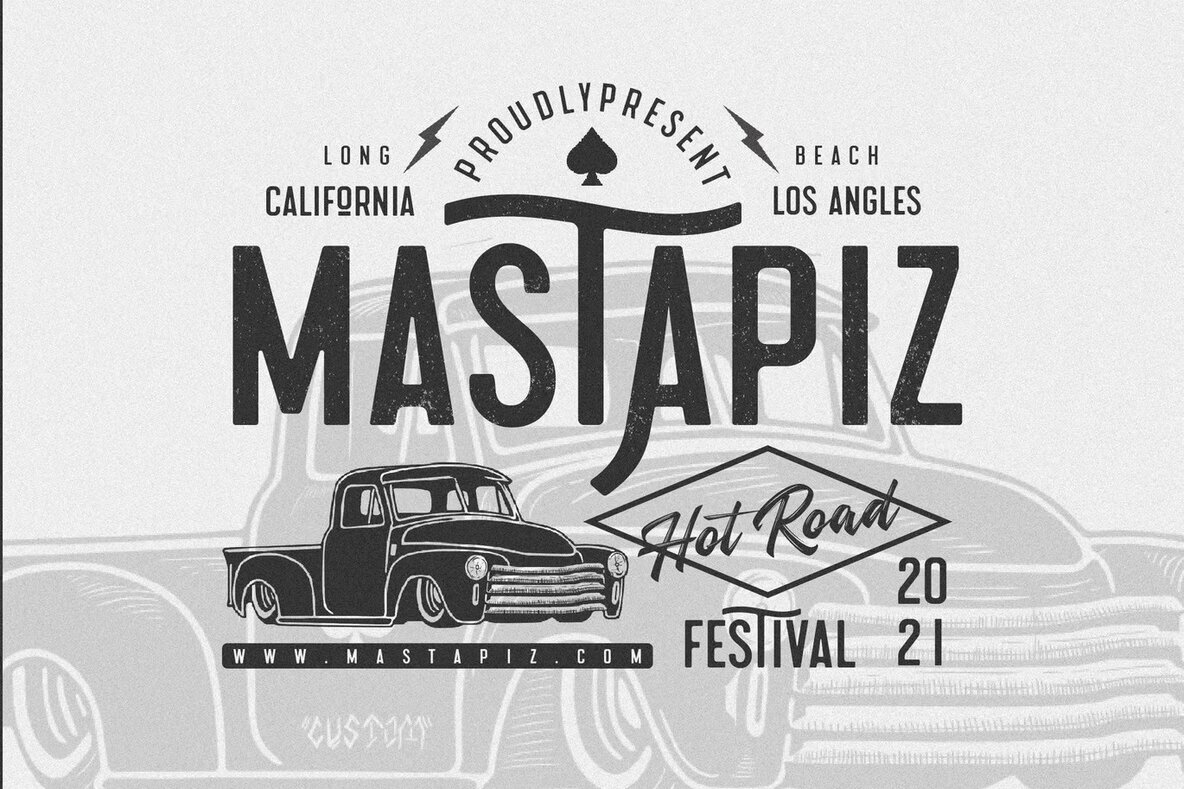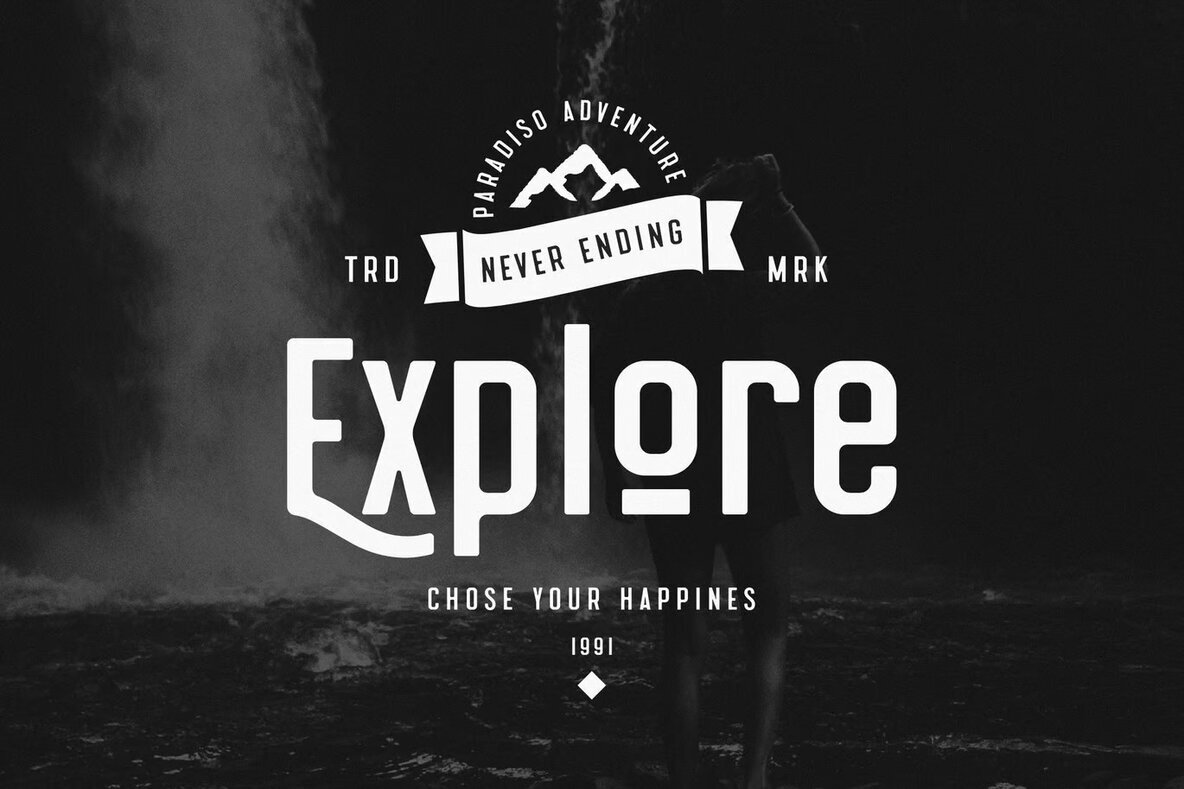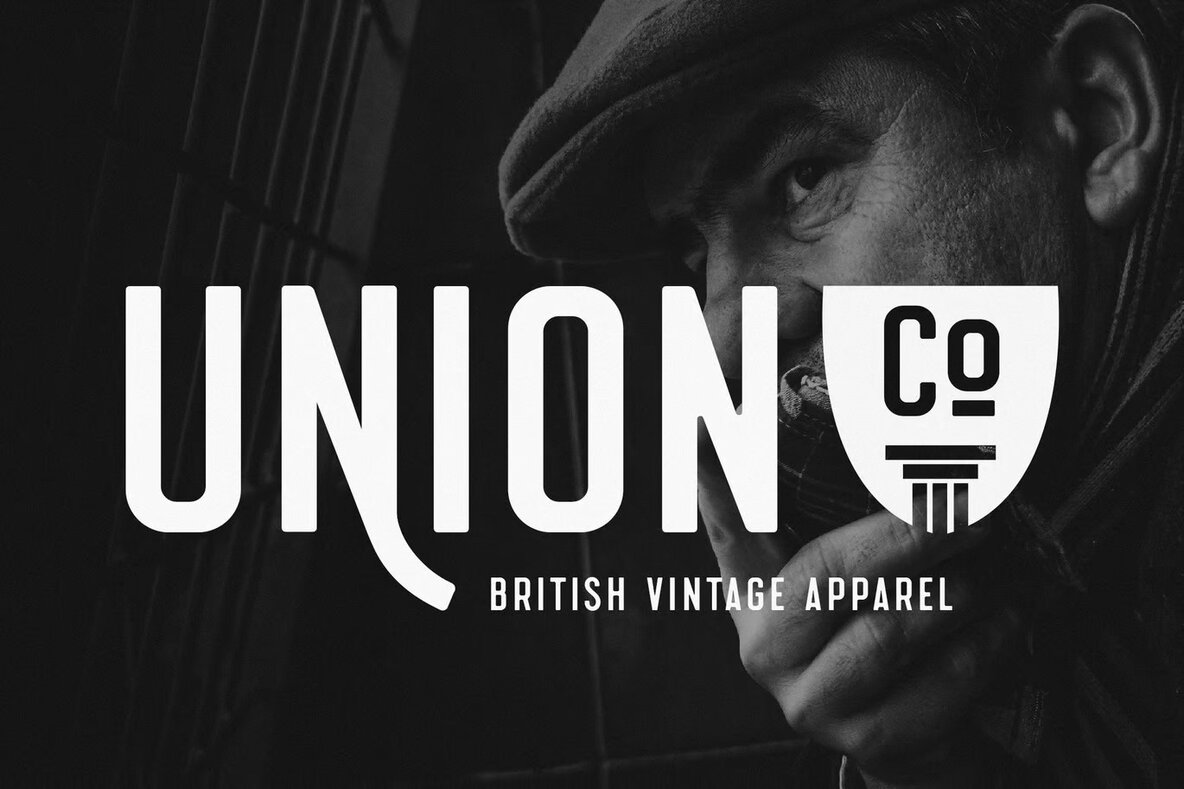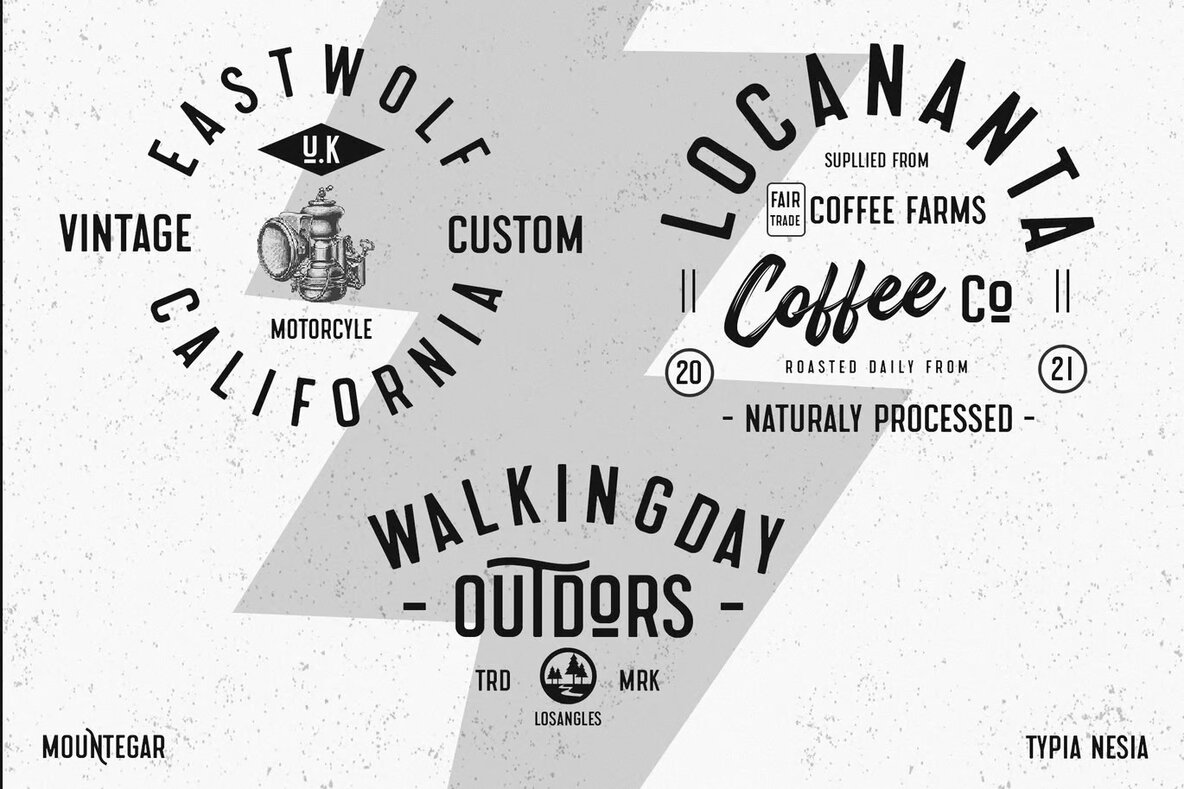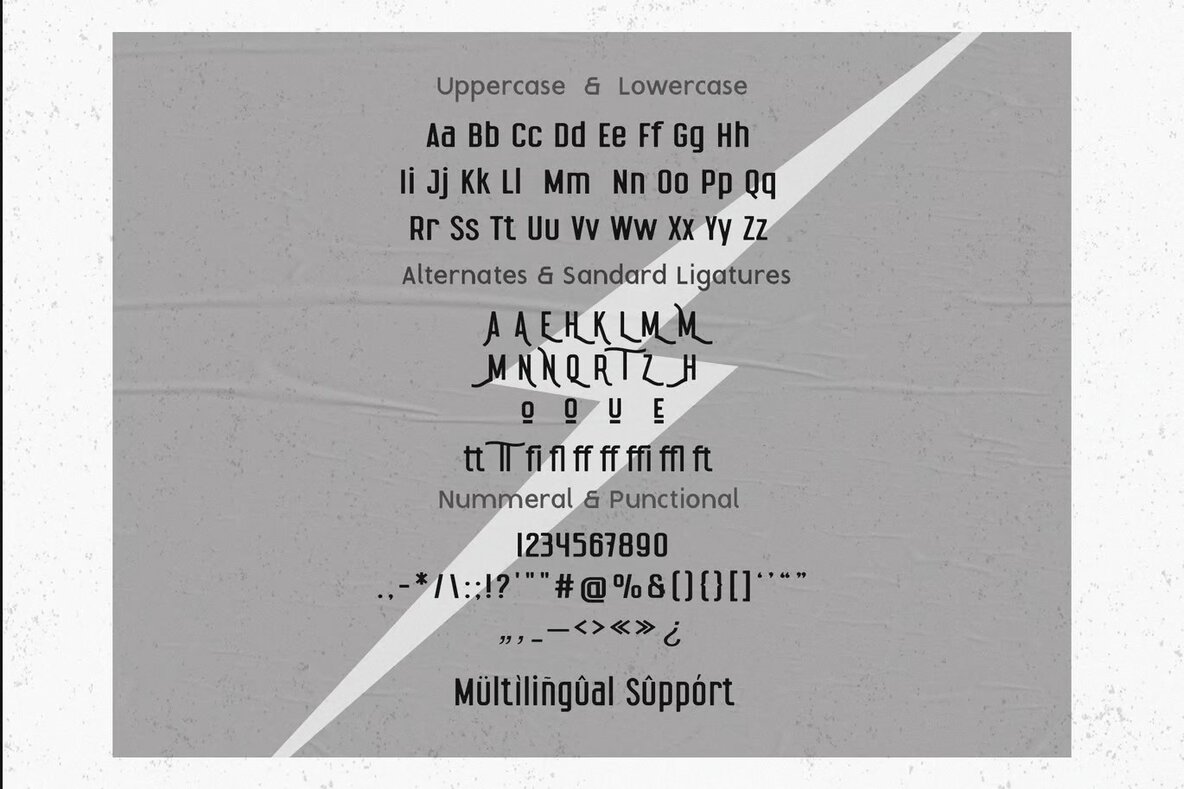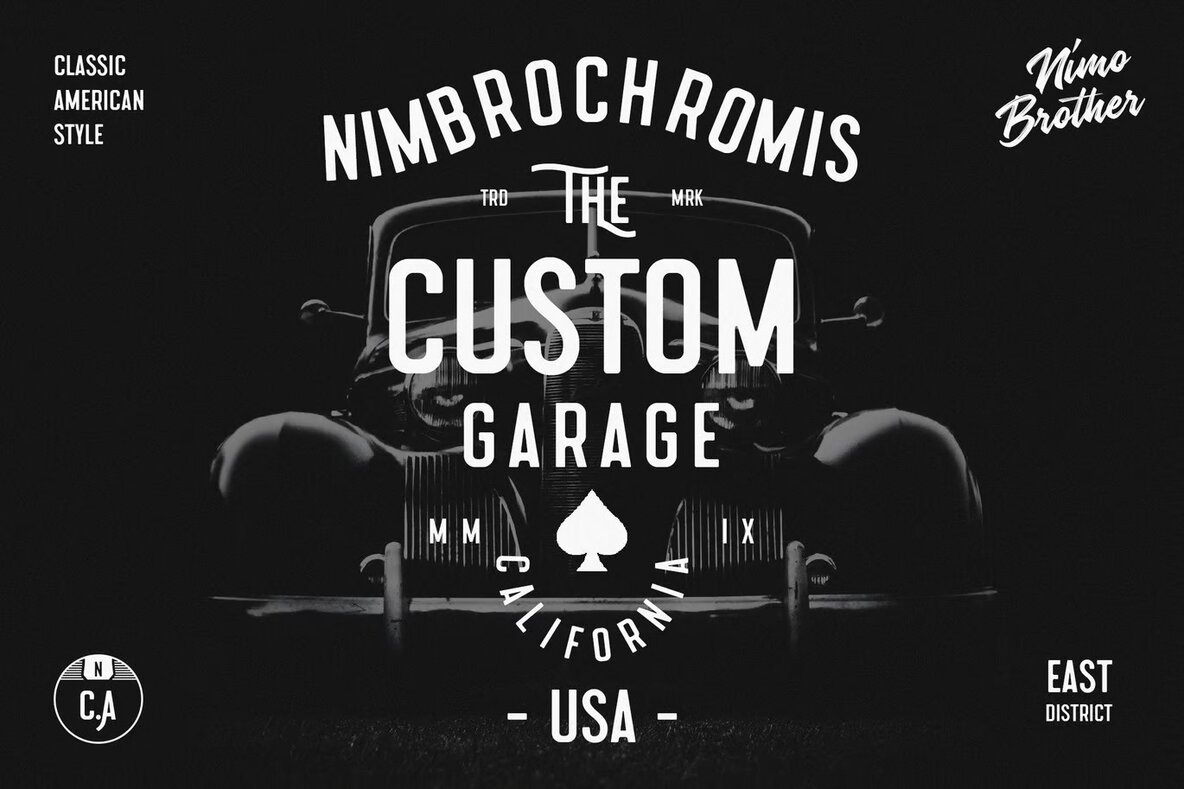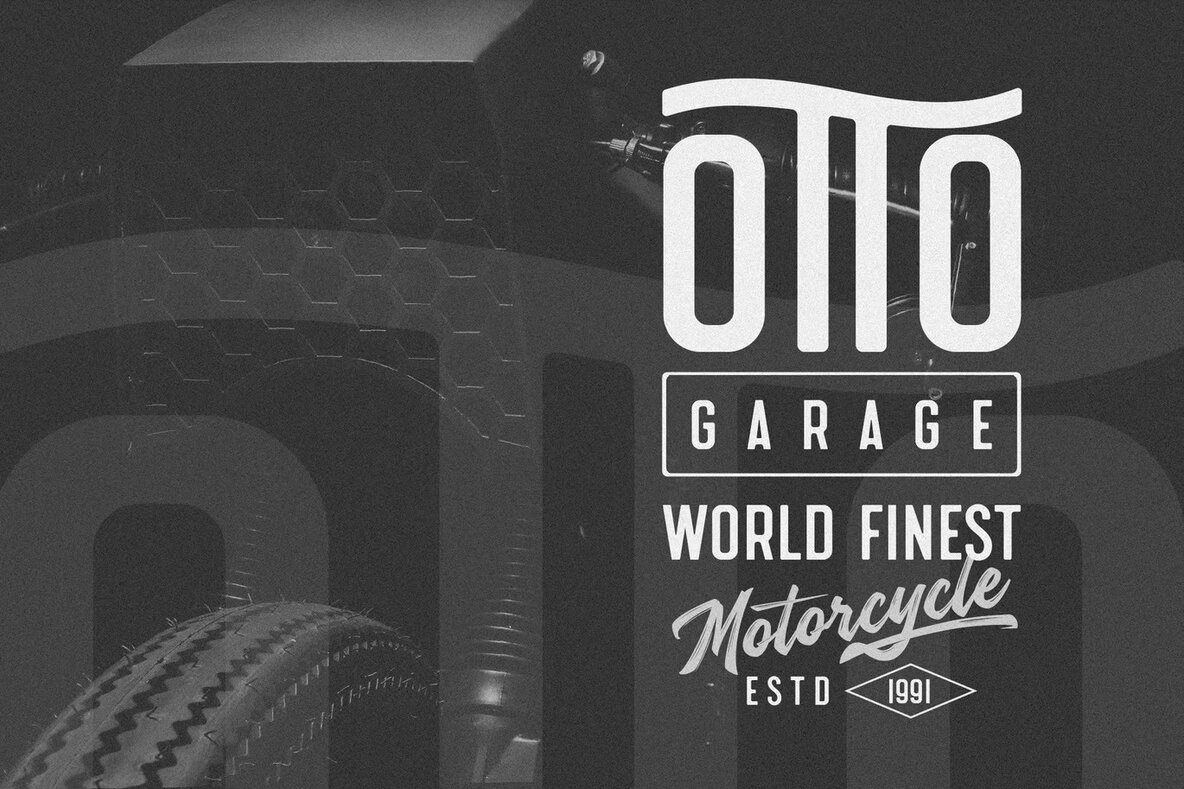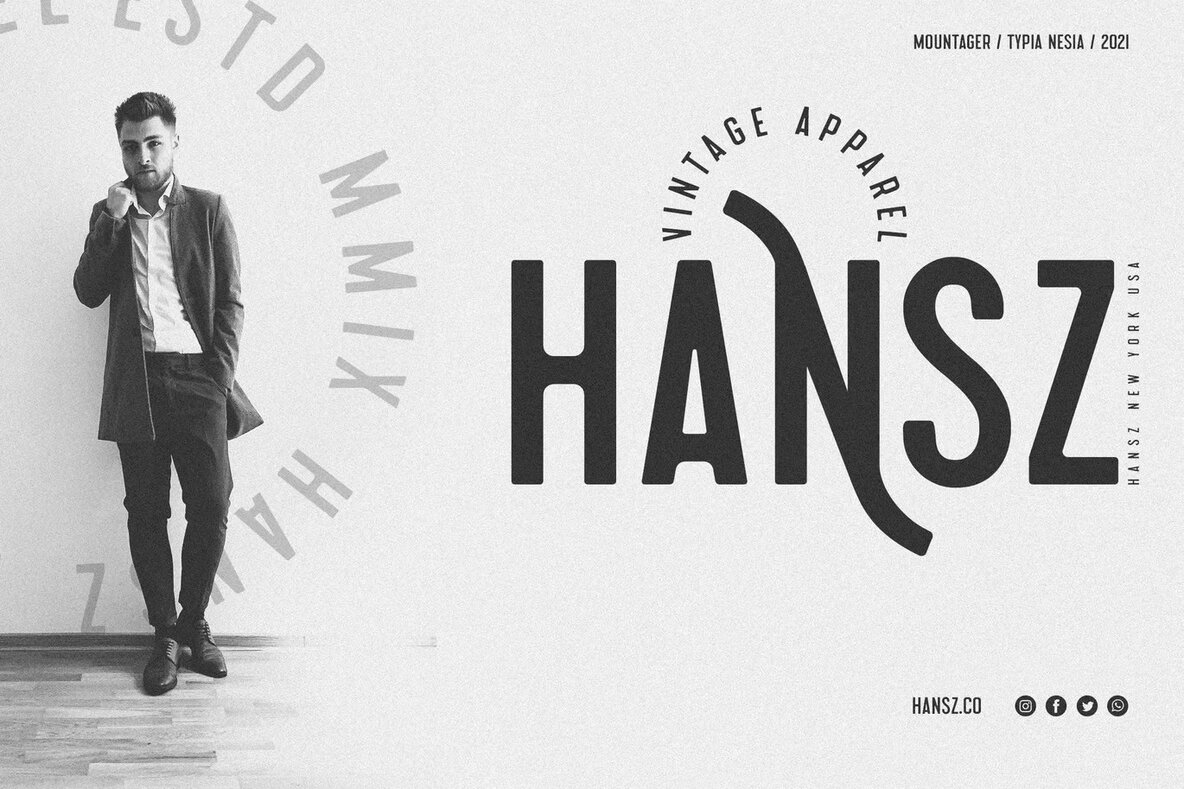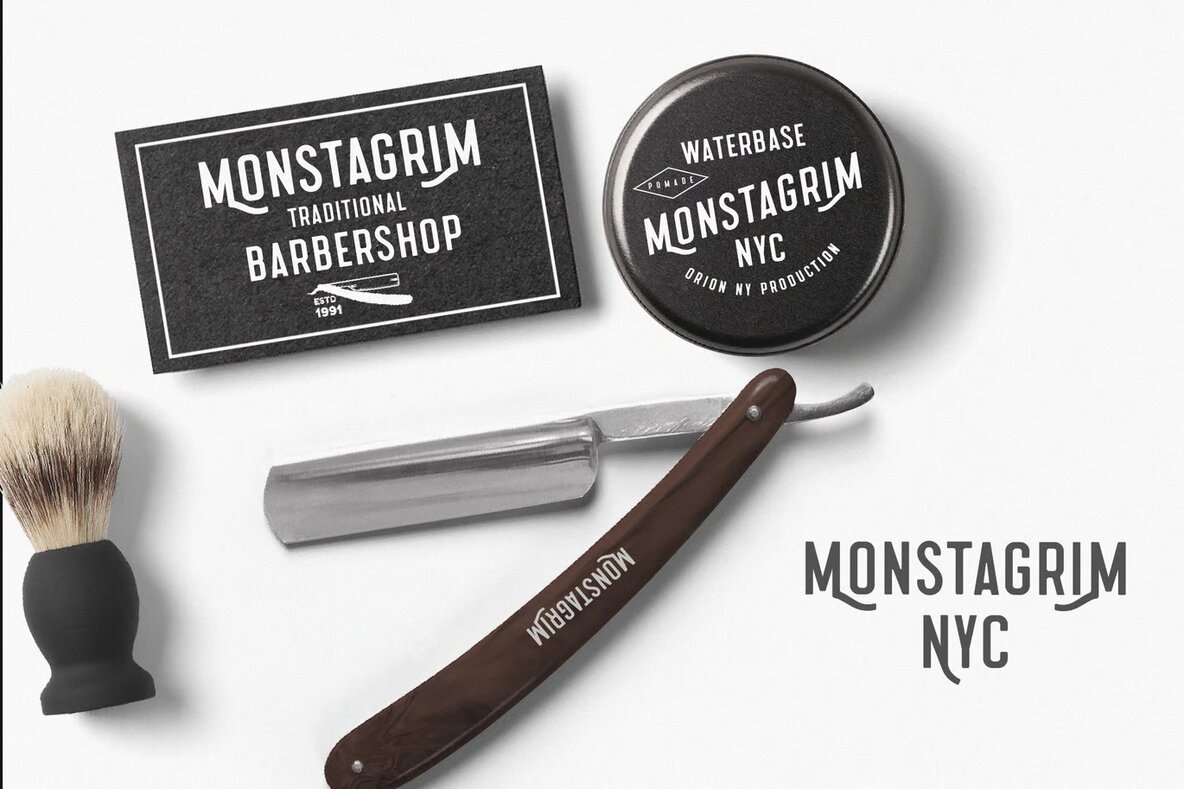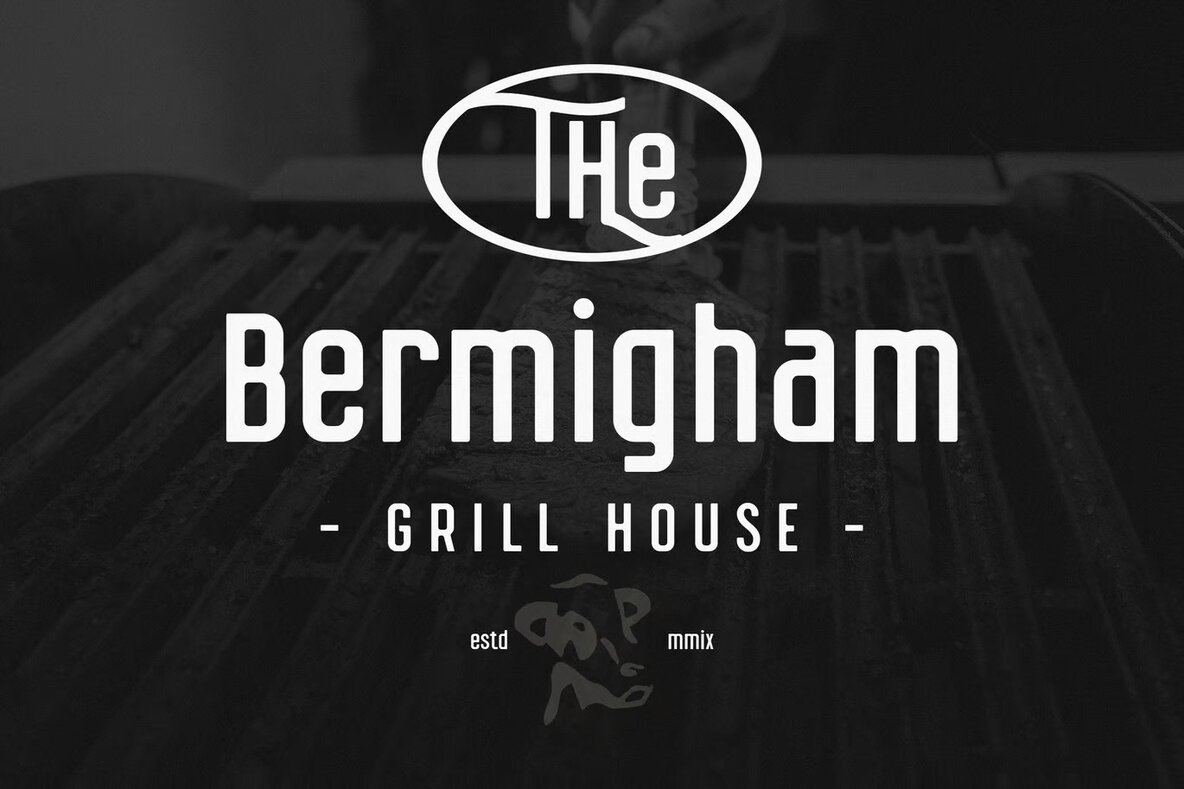
Mountager Font
Mountager
Introducing a bold and adventurous typeface, perfect for captivating designs that demand attention. This vintage garage sans serif is designed to complement diverse creative needs, from branding and logos to modern advertising and apparel design. Its unique character and versatility make it ideal for adventurous, mountain-themed projects and edgy, hardcore music visuals. Whether you're working on posters, book covers, or editorial layouts, this font is engineered to add a distinctive, hand-lettered aesthetic to your projects.
This font is a stellar choice for customizing merchandise like mugs, pillows, and t-shirts. It's especially well-suited for gothic and thematic projects requiring a distinctive display font. Its wild adventure style offers a creative edge, making it an excellent pick for animation, movies, and website designs. Effortlessly adaptable, this font enhances any project with its vintage appeal and rugged charm.